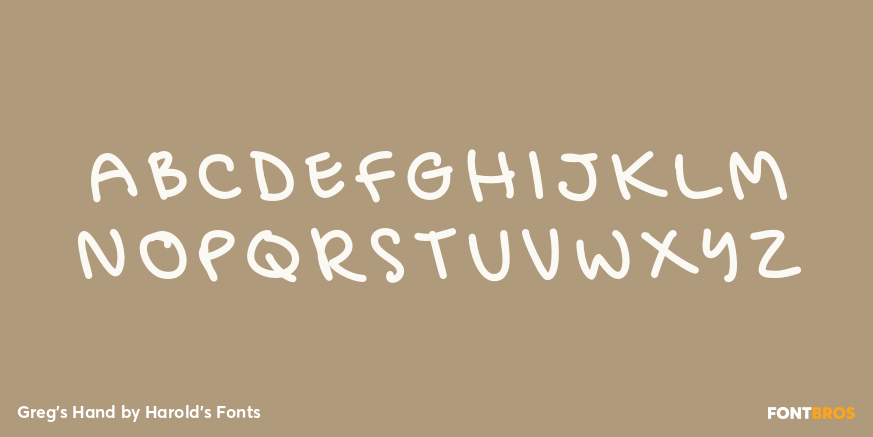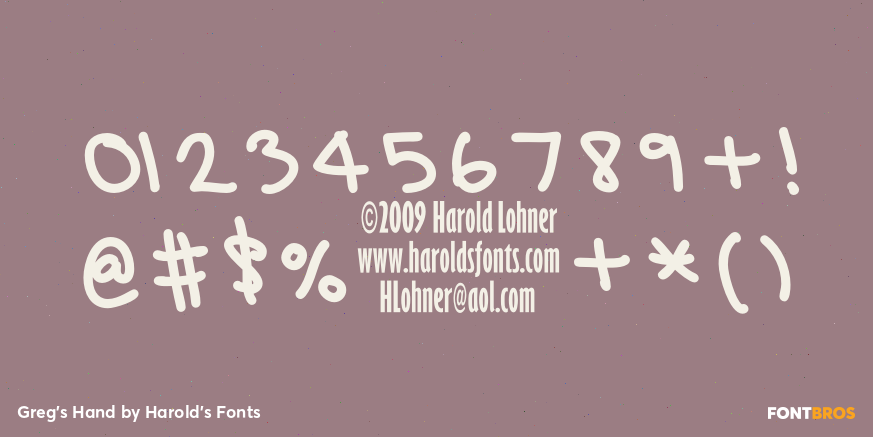
Greg's Hand
GREG’S HAND was developed in collaboration with artist Greg Smith. Greg did the original lettering in Illustrator and then I made the font, adding and adjusting as needed. Looks like it was written with a Sharpie.